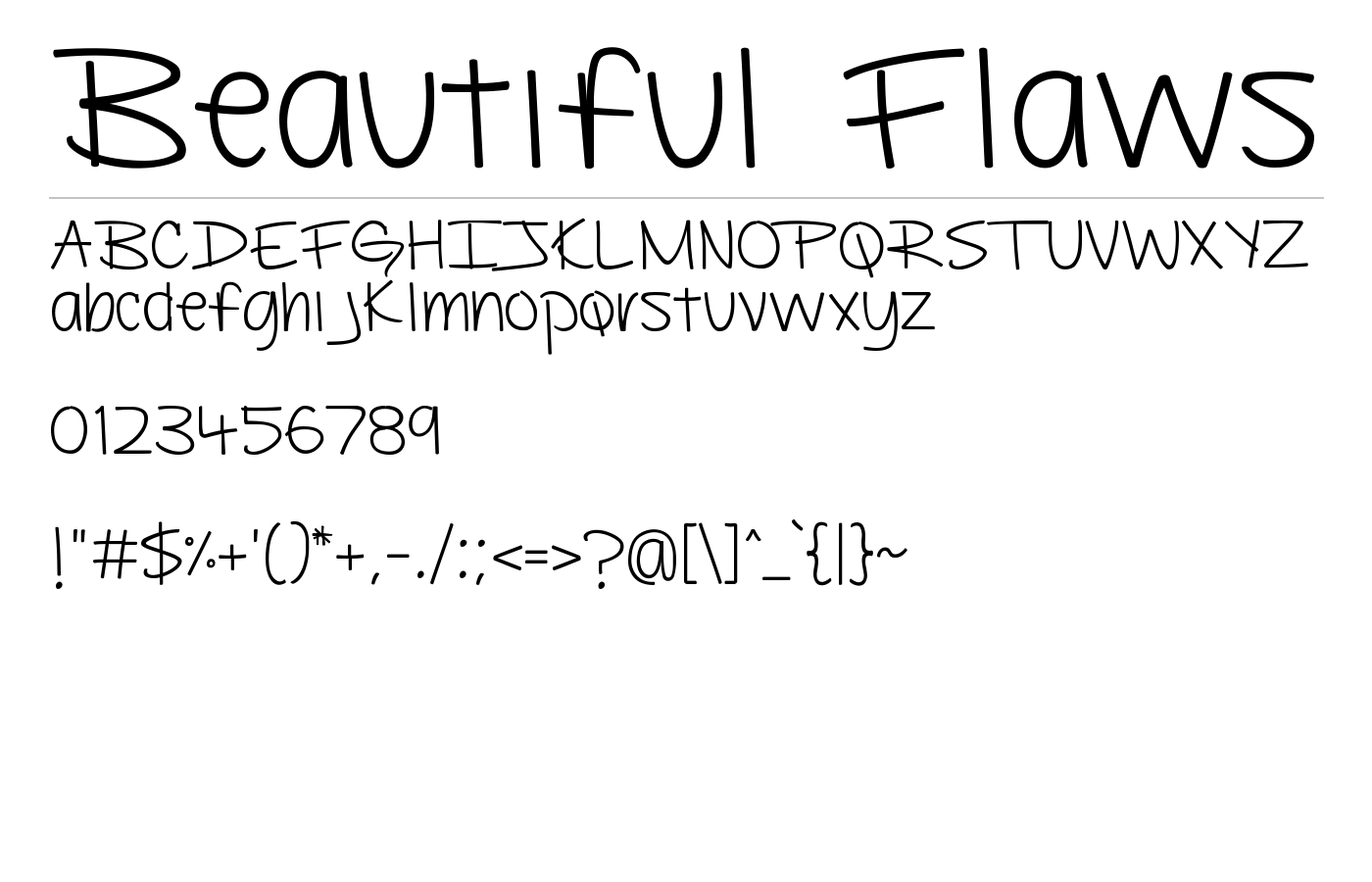
Beautiful Flaws is a playful handwritten sans serif font with a light weight and a casual, slightly imperfect style that adds charm and personality. Its tall, narrow letterforms with simple lines and quirky details make it perfect for fun, informal designs like greeting cards, children’s books, and creative branding projects that want to feel approachable and friendly. This font works well in headlines and short text where a warm, human touch is desired.
Beautiful Flaws Font
About Beautiful Flaws Font